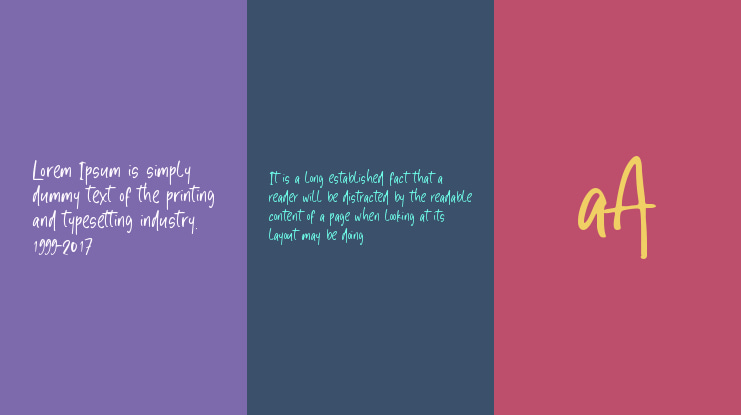
Fresh Cocktails is a handwritten font, this font Is perfect for lproduct packaging, product designs, label, photography, watermark, special events or anything.
Fresh Cocktails comes with uppercase and lowercase letters, multilingual symbols, numerals, punctuation.